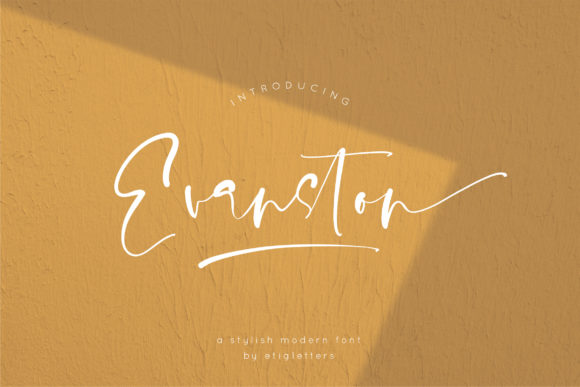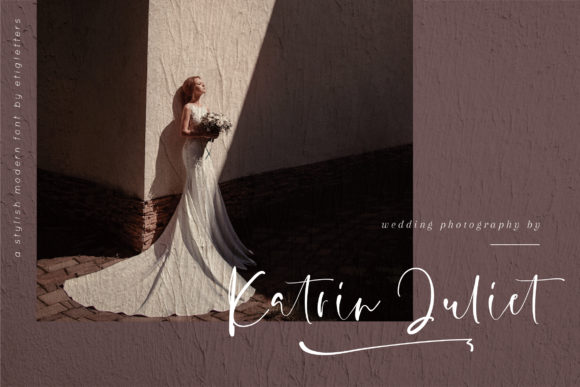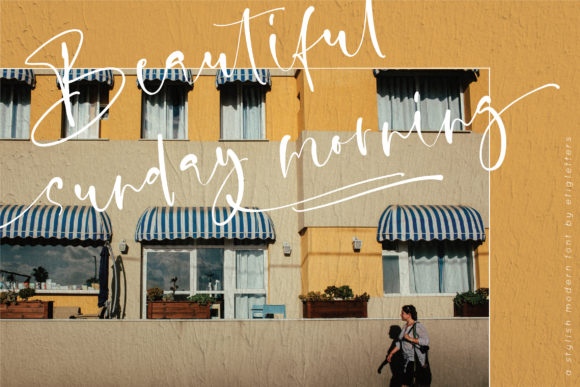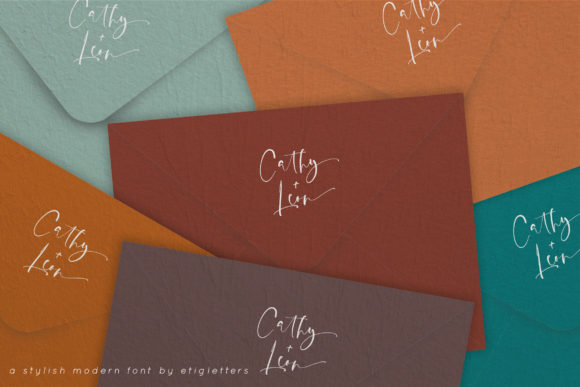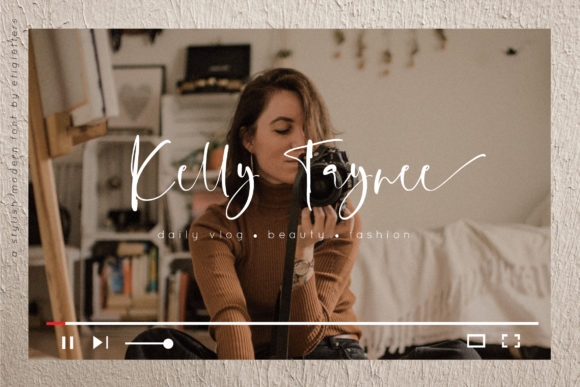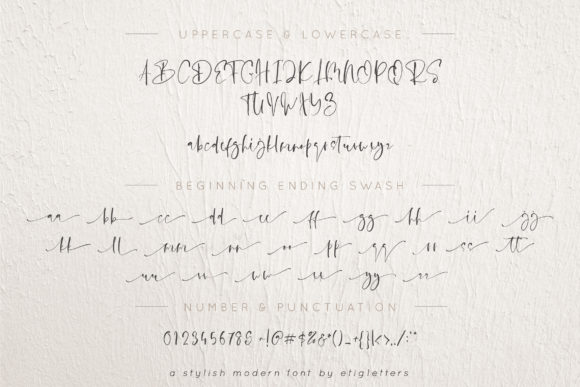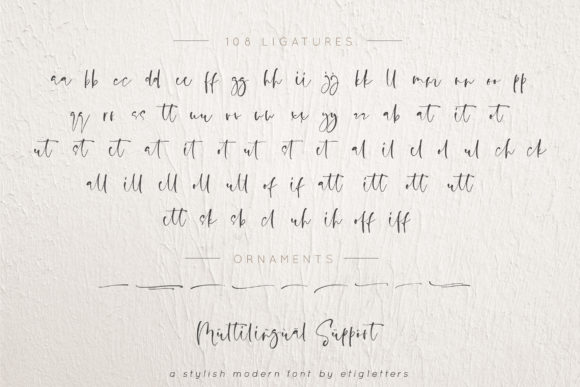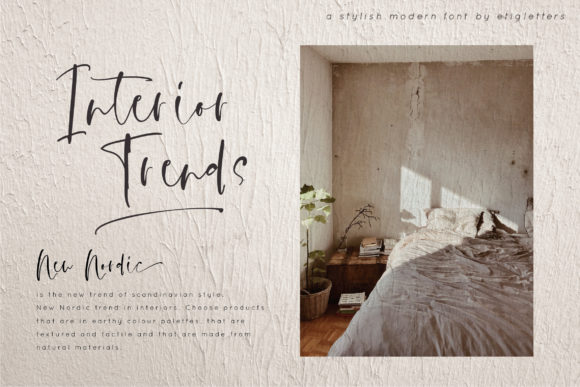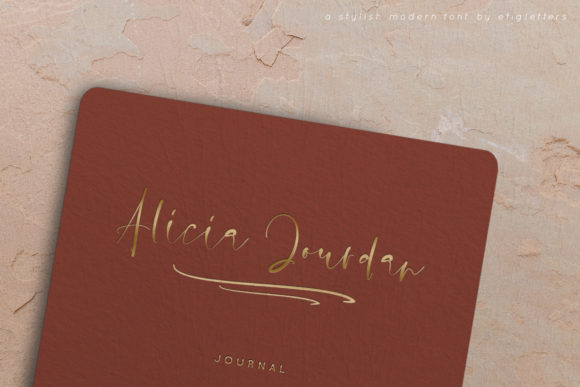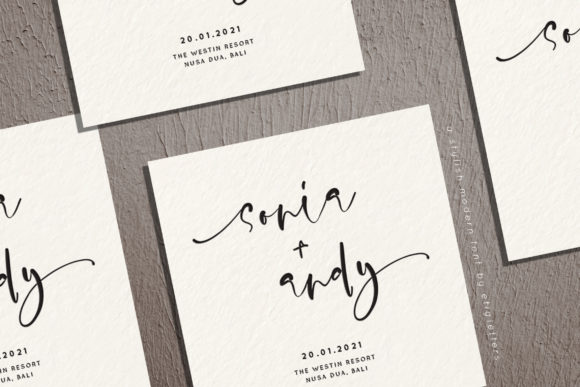
Evanston Font
About Evanston Font
Evanston is an elegant and flowing handwritten font. It is PUA encoded which means you can access all of the glyphs and swashes with ease! It features a varying baseline, smooth lines, gorgeous glyphs and stunning alternates. It maintains its classy calligraphic influences while feeling contemporary and fresh. Fall in love with Evanston and bring your projects to the highest levels!